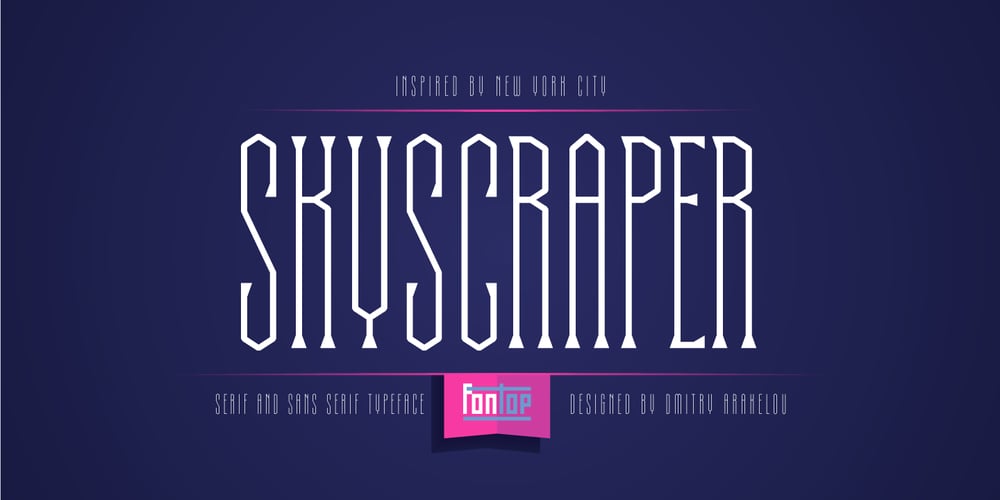
Skyscraper
Skyscraper font
Skyscraper Font Family was designed by Dmitry Arakelov and published by Fontop. Skyscraper contains 3 styles and family package options. Introducing the new serif and sans serif typeface SKYSCAPER. Inspired by NY city this elegant, simple, yet distinctive styles look great in posters, leaflets, books, magazines, presentations as well as logos and blog posts. The font also has two additional styles with different design of serifs. What is included in the pack of font family: Skyscraper Condensed Serif One Skyscraper Condensed Serif Two The font family is Latin multilingual and has uppercase letters, lowercase letters, numbers and basic punctuations.